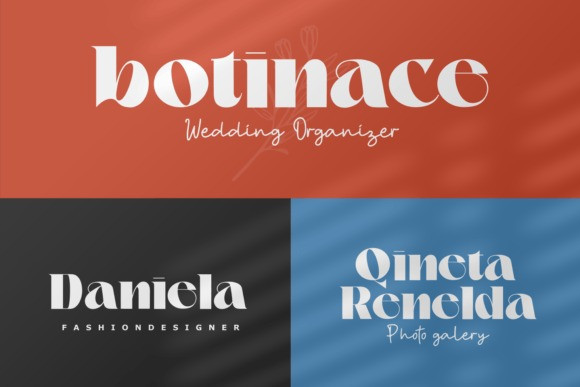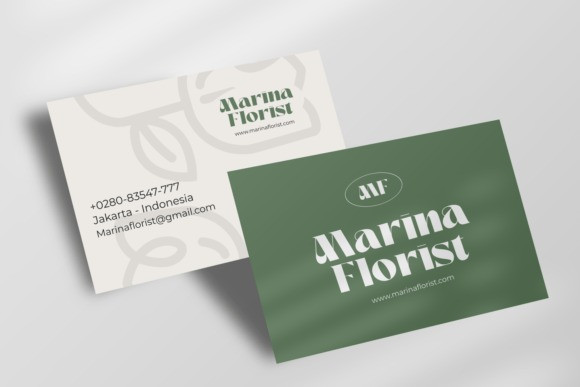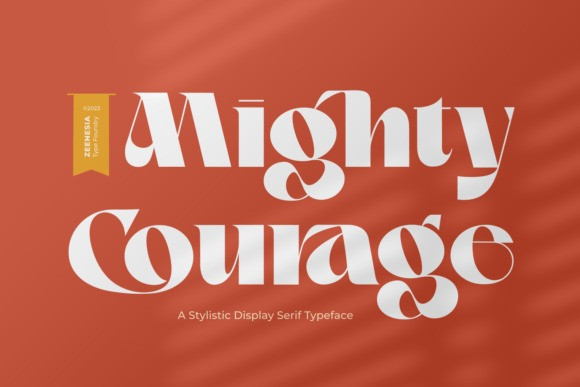
Mighty Courage Font
Mighty Courage Serif Font is a modern and elegant serif font. Mighty Courage is It’s modern and classy font with a unique and deference look . Perfect if you need a dose of fun in your project. Perfect for editorial projects, Logo design, web font, clothing branding, product packaging, magazine headers, or simply as a stylish text overlay to any background image.